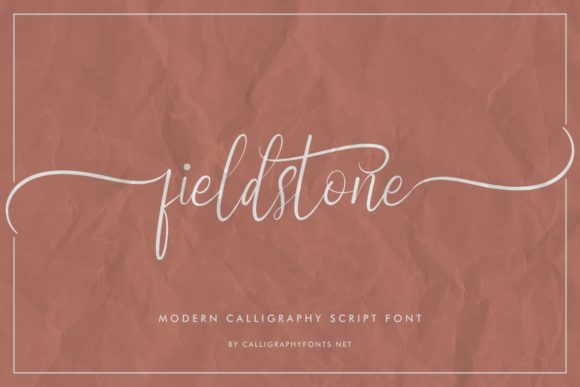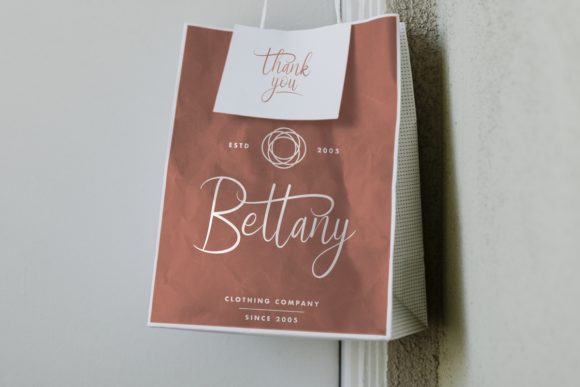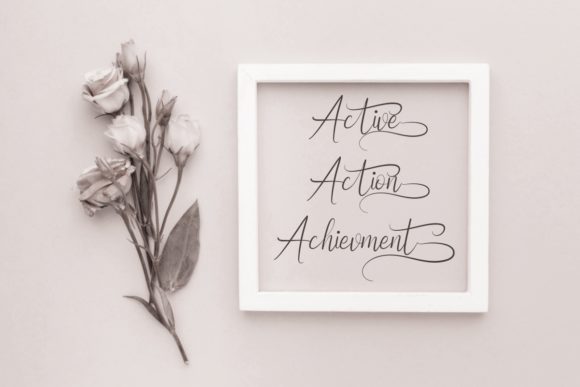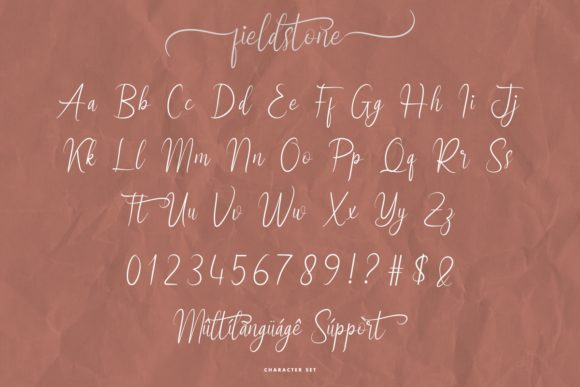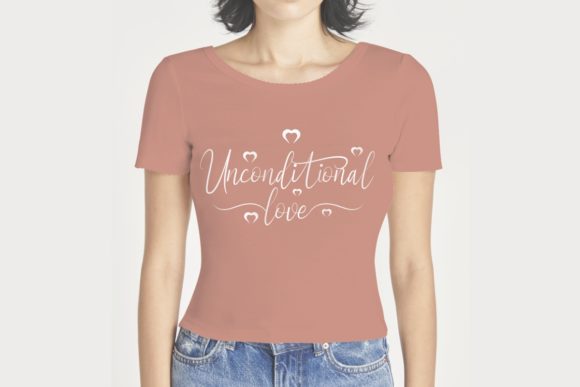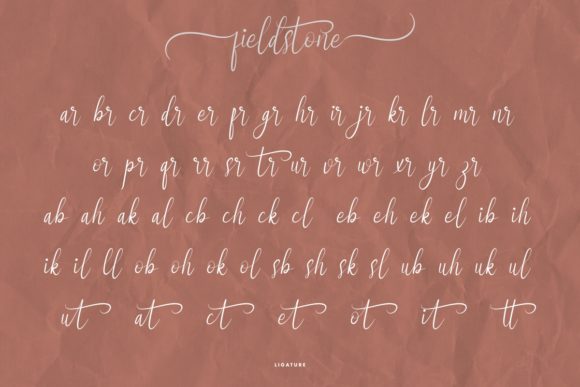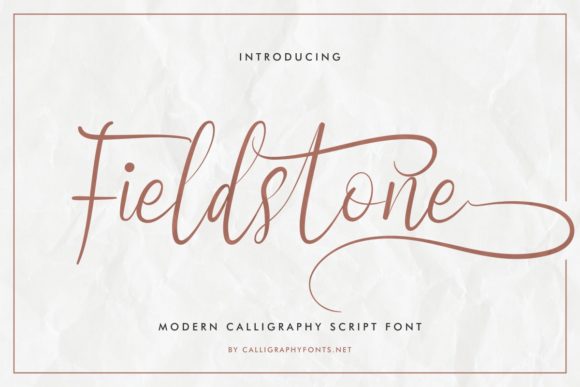
Introducing Fieldstone Font: Elevate Your Designs with a Stylish, Clean, and Joyful Handwritten Touch
Are you tired of using the same old fonts in your designs? Do you want to add a personal touch to your quotes, greeting cards, logos, business cards, and other creative projects? Look no further than Fieldstone Font, a beautiful, clean, and joyful handwritten font that’s perfect for designers and crafters alike.
What Makes Fieldstone Font Special?
Fieldstone Font is a stylish and modern handwritten font that’s designed to bring a touch of personality to your designs. Its clean lines and joyful feel make it perfect for a wide range of projects, from inspirational quotes to business branding. Whether you’re a designer, crafter, or DIY enthusiast, Fieldstone Font is sure to become your go-to choice for adding a personal touch to your work.
Fieldstone Font is incredibly versatile and can be used for a variety of design projects, including:
- Quotes: Add a touch of elegance and sophistication to your inspirational quotes with Fieldstone Font.
- Greeting Cards: Create beautiful and personalized greeting cards for special occasions like birthdays, weddings, and holidays.
- Logos: Use Fieldstone Font to create a unique and memorable logo for your business or brand.
- Business Cards: Add a personal touch to your business cards and make them stand out from the crowd.
- DIY Projects: Use Fieldstone Font to add a personal touch to your DIY projects, such as scrapbooking, journaling, and crafting.
One of the best things about Fieldstone Font is that it’s PUA (Private Use Area) encoded, which means you can access all of the glyphs and swashes with ease. This makes it easy to customize your designs and add a unique touch to your projects.
Why Choose Fieldstone Font?
So why choose Fieldstone Font over other fonts? Here are just a few reasons:
- Unique and stylish: Fieldstone Font is a one-of-a-kind font that’s sure to make your designs stand out.
- Clean and modern: The clean lines and modern feel of Fieldstone Font make it perfect for a wide range of design projects.
- Easy to use: Fieldstone Font is PUA encoded, making it easy to access all of the glyphs and swashes.
- Versatile: Fieldstone Font can be used for a wide range of design projects, from quotes and greeting cards to logos and business cards.
Tips for Using Fieldstone Font
Here are a few tips for using Fieldstone Font in your designs:
Fieldstone Font is a beautiful, clean, and joyful handwritten font that’s perfect for designers and crafters alike. Its stylish and modern feel makes it perfect for a wide range of design projects, from quotes and greeting cards to logos and business cards. With its PUA encoding and easy-to-use glyphs and swashes, Fieldstone Font is a must-have for anyone looking to add a personal touch to their designs.